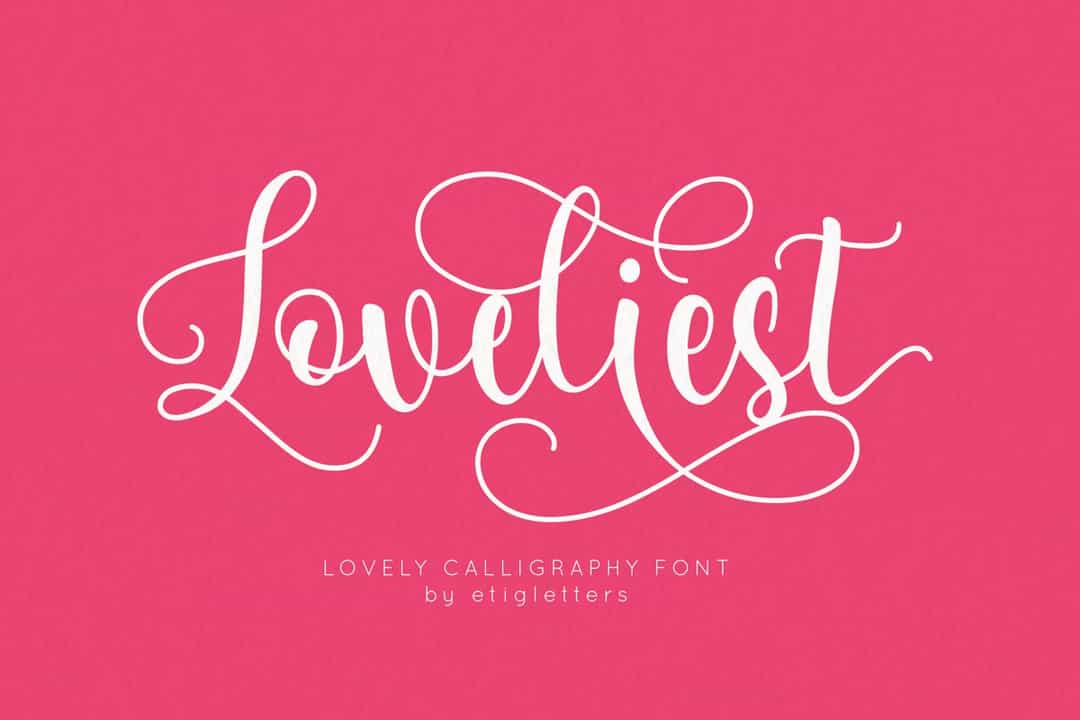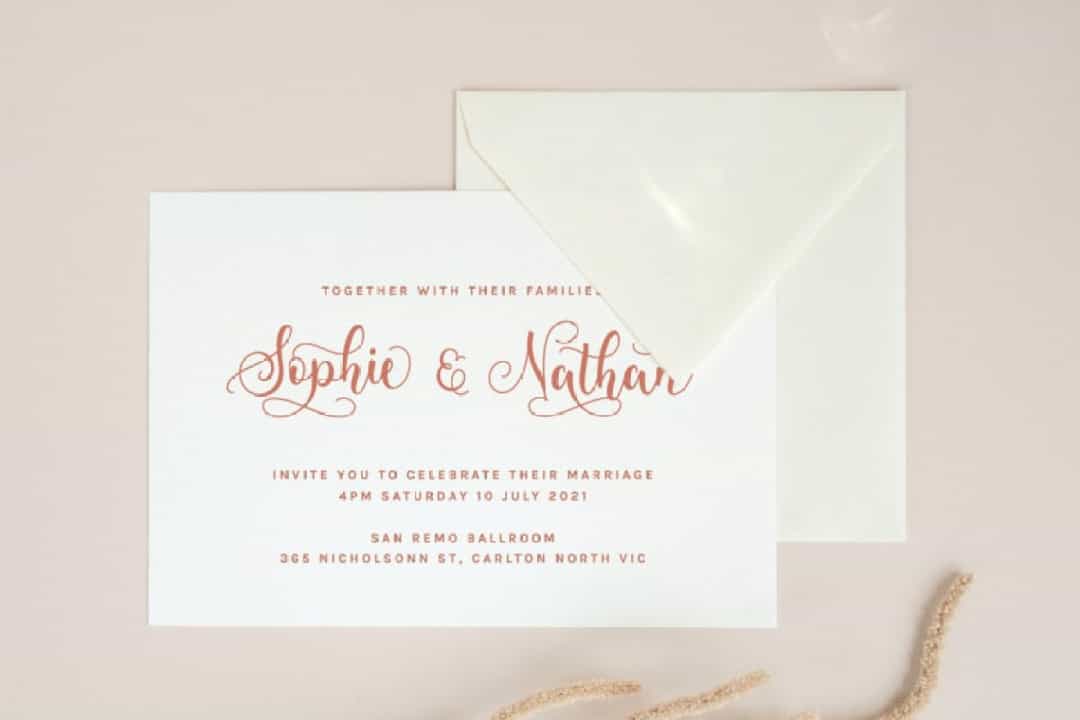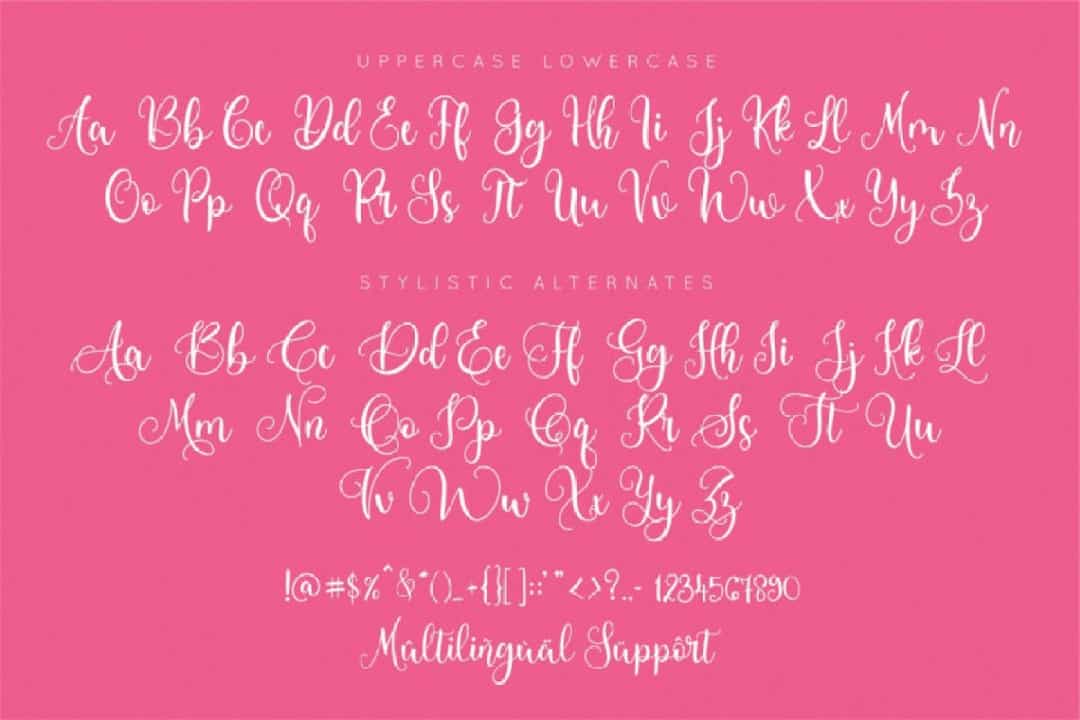
Loveliest is an elegant calligraphy font featuring flourishes on every letter. Perfect for use in wedding invitations, crafting materials branding materials invitations and much more.